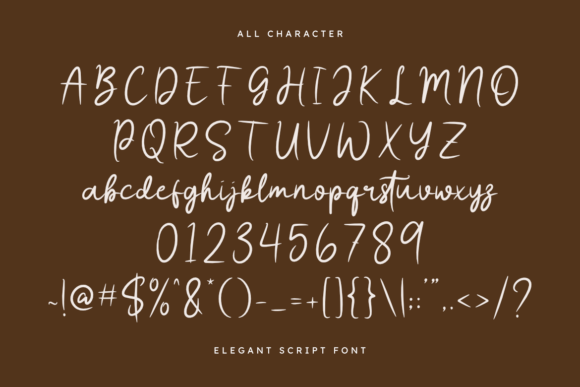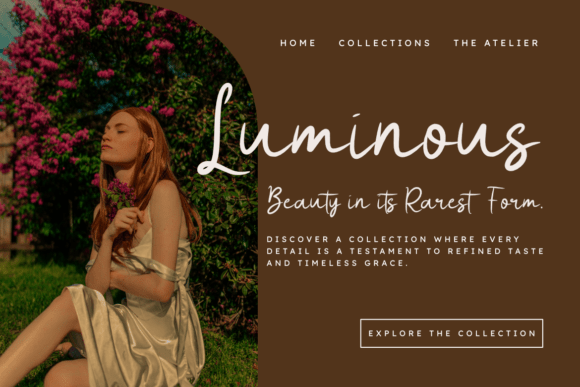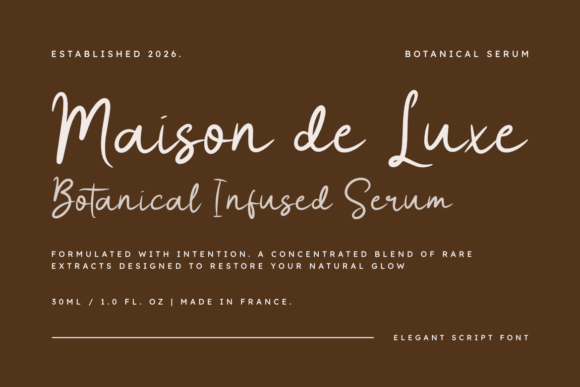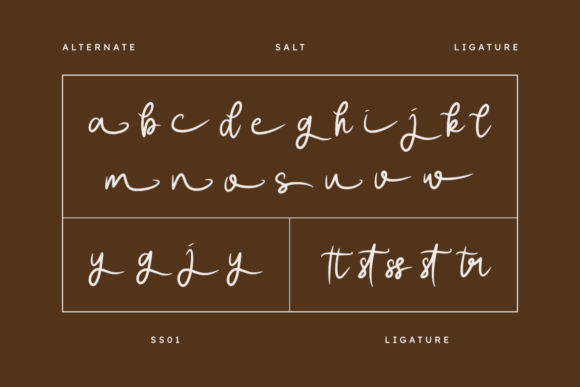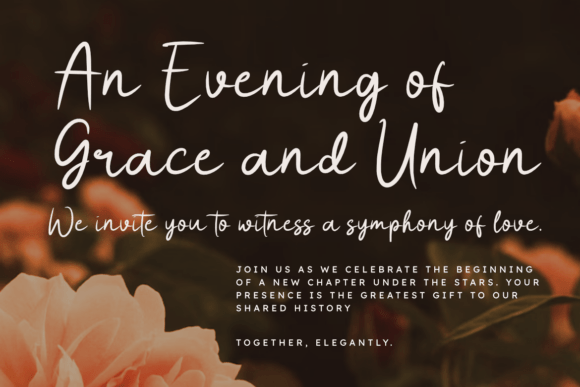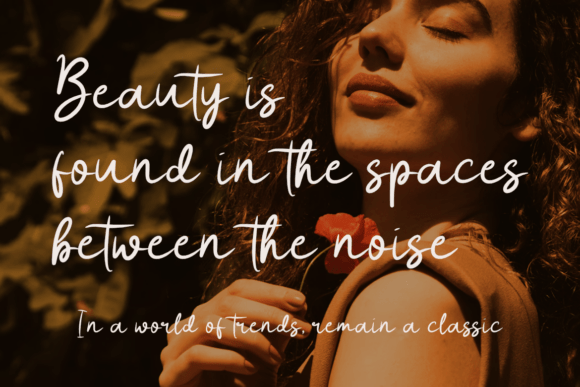
Adding a Touch of Romance to Your Designs
It’s that time of the year again – the candles are lit, flowers are in bloom, and love is in the air. As designers, we’re always on the lookout for the perfect font to capture the essence of the moment. And, we’re thrilled to introduce you to the Celebrate Valentine Font – a beautiful natural script font that exudes elegance and sophistication.
| 👤 Author | Funtype Co. |
Perfect for romantic designs, branding, logos, and social media, the Celebrate Valentine Font adds a personal and sophisticated touch to any project. With its flowing style, it’s the perfect choice for designers who want to create stunning visuals that speak directly to the heart. Whether you’re working on a Valentine’s Day campaign or a wedding invitation, this font is sure to make your designs stand out.
Celebrate Valentine Font Key Features
- Unique Characteristics: Celebrate Valentine Font features a playful, cursive script with decorative flourishes, making it ideal for romantic and festive designs.
- Font Style: Celebrate Valentine Font offers a range of font styles, including Regular, Italic, Bold, and Bold Italic, providing flexibility for different design needs.
Celebrate Valentine Font Review
At first glance, the Celebrate Valentine Font has a lot of potential. ✨ The playful, cursive design immediately conveys a sense of romance and festivity, perfect for Valentine’s Day-themed projects. The font is well-suited for titles, headings, and short phrases that need to stand out.
- ✨ Easy to read, even at smaller font sizes
- ✨ Beautiful, flowing design that’s perfect for cursive text
- ✨ Great for adding a touch of whimsy to projects
However, there are some limitations to consider. ⚠️ The font may not be as effective for body text, as the cursive design can make it difficult to read in larger blocks of text. Additionally, the font may not be suitable for projects that require a more professional or formal tone.
Overall, the Celebrate Valentine Font is a great choice for projects that need a playful, romantic touch. While it may not be the best option for all types of projects, it’s a great addition to any designer’s toolkit.
I’d rate this font 4 out of 5 stars. With a bit more versatility, it could be a truly standout font. As it is, it’s a solid choice for Valentine’s Day-themed projects and other fun, lighthearted designs.
Celebrate Valentine Font: A Practical Application Guide
For the best results, use the Celebrate Valentine Font in bold or italic styles to add emphasis to your text.
The Celebrate Valentine Font is ideal for:
Creating romantic social media posts and cards.
Designing wedding invitations and decorations.
Adding a touch of whimsy to your blog or website content.